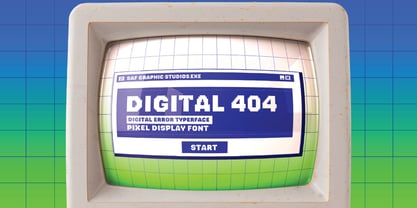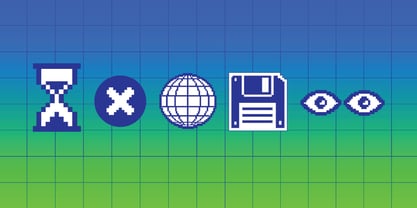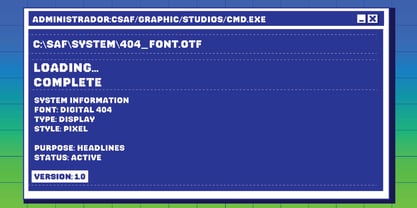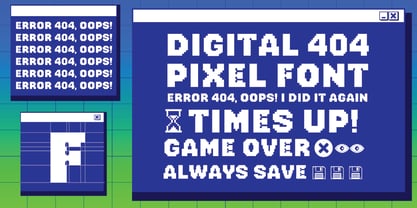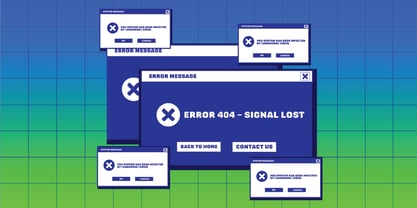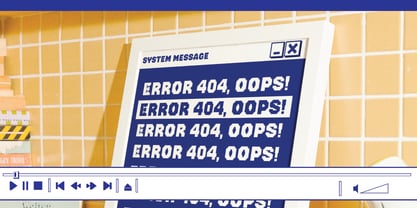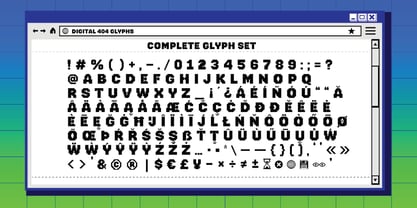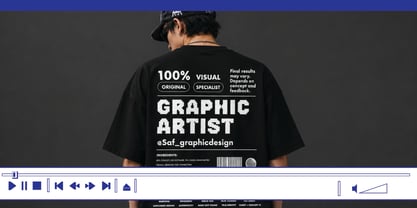
Digital404
The Digital404 Font Family was designed by Carlos Candray and published by CentroType. Digital404 contains 2 styles and family package options. More about this family
Digital404 is a pixel-style typeface family born from the intersection of computer nostalgia and contemporary digital design. The original concept and design were envisioned by Sebastián Alvarado Flamenco, a talented Salvadoran designer, who teamed up with Carlos Candray from Centrotype to meticulously craft and refine the final font. Inspired by error codes, retro operating system user interfaces, and early internet culture, this typeface is built on a precise grid to offer a crisp, technological, and purely digital look.
The family is enhanced by its dynamic Slant variant, which injects an aggressive sense of speed and an intentional system glitch into the rigid pixel structure. While the Regular weight delivers solid stability and exceptional legibility for user interfaces, menus, and subtitling, the Slant version introduces a disruptive motion that shifts the aesthetic from static control to digital chaos.
Designed to shine in high-energy projects, Digital404 is the perfect choice for indie video game development, cyberpunk branding, electronic music posters, and vanguard streetwear design. It brings a raw, low-resolution atmosphere that stands out in titles, headers, and futuristic layouts, offering designers a versatile tool to bridge the gap between 8-bit nostalgia and modern tech aesthetics.